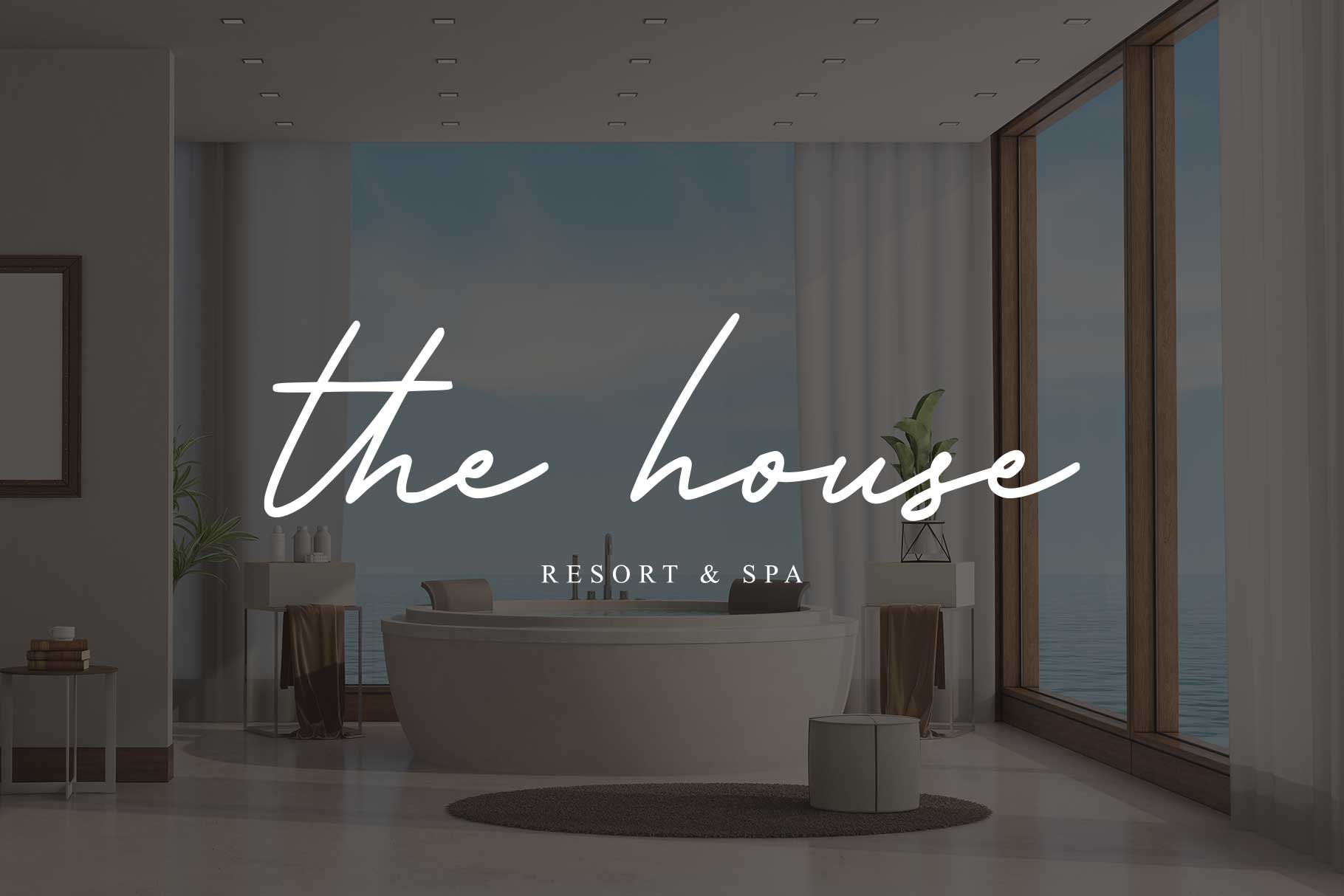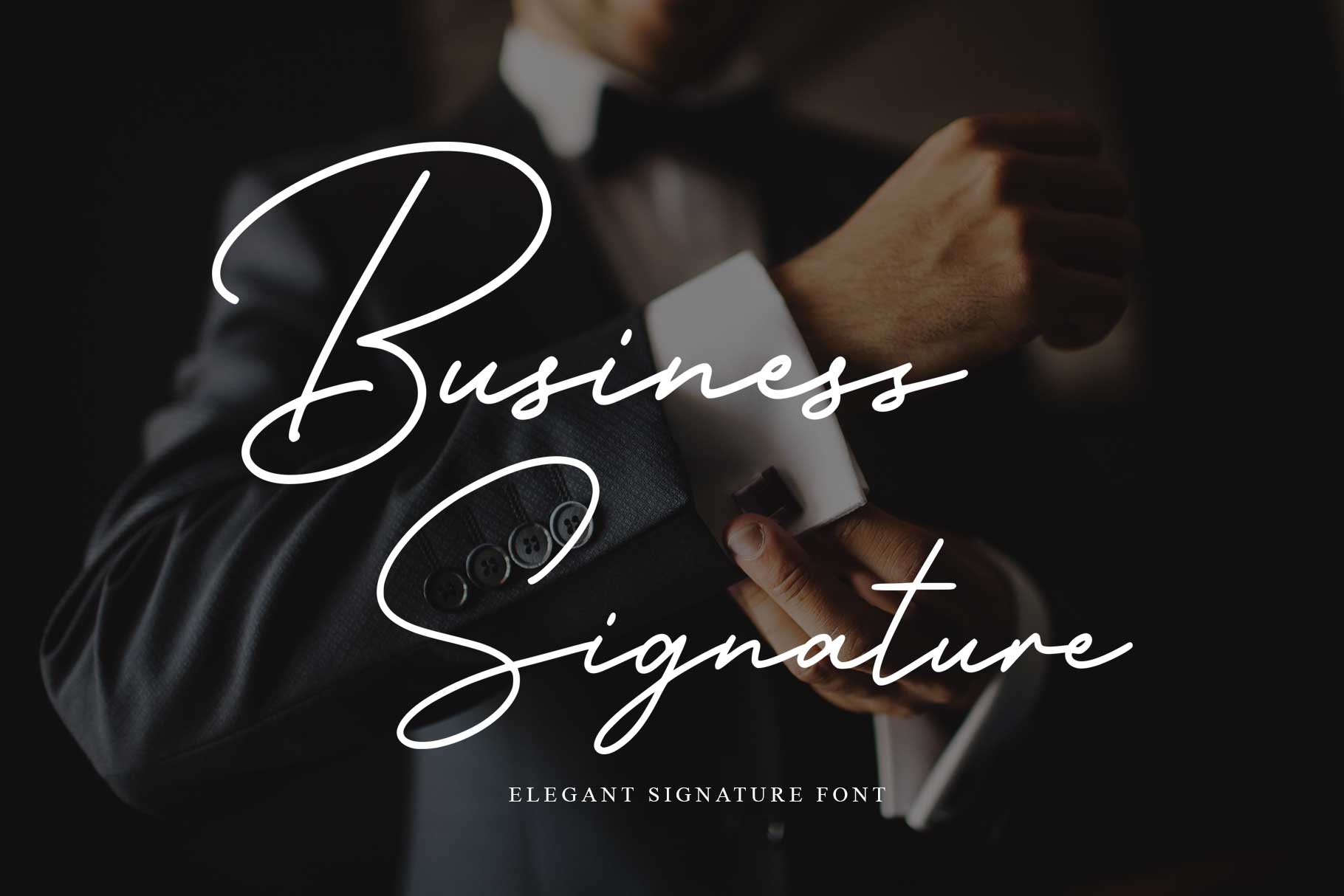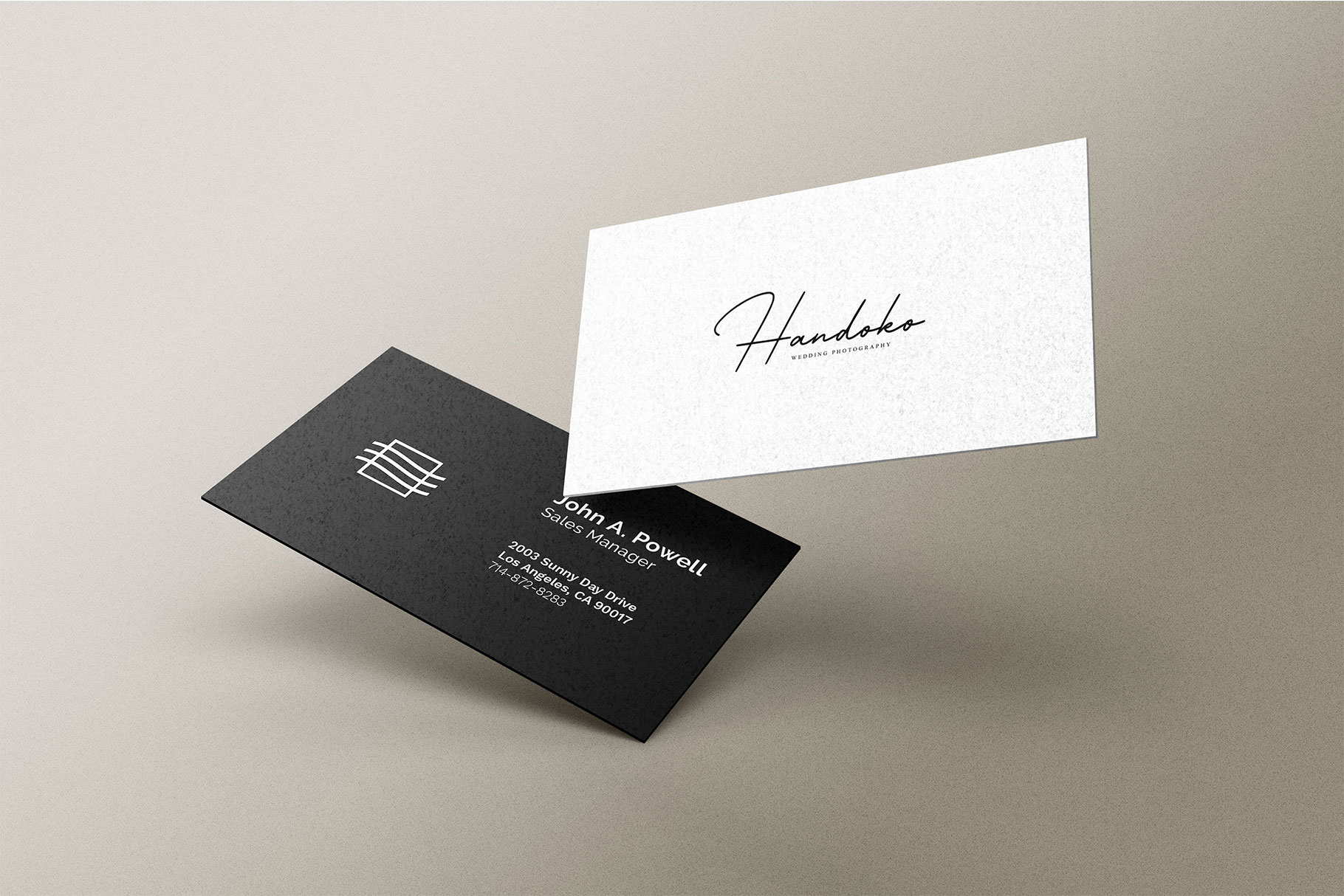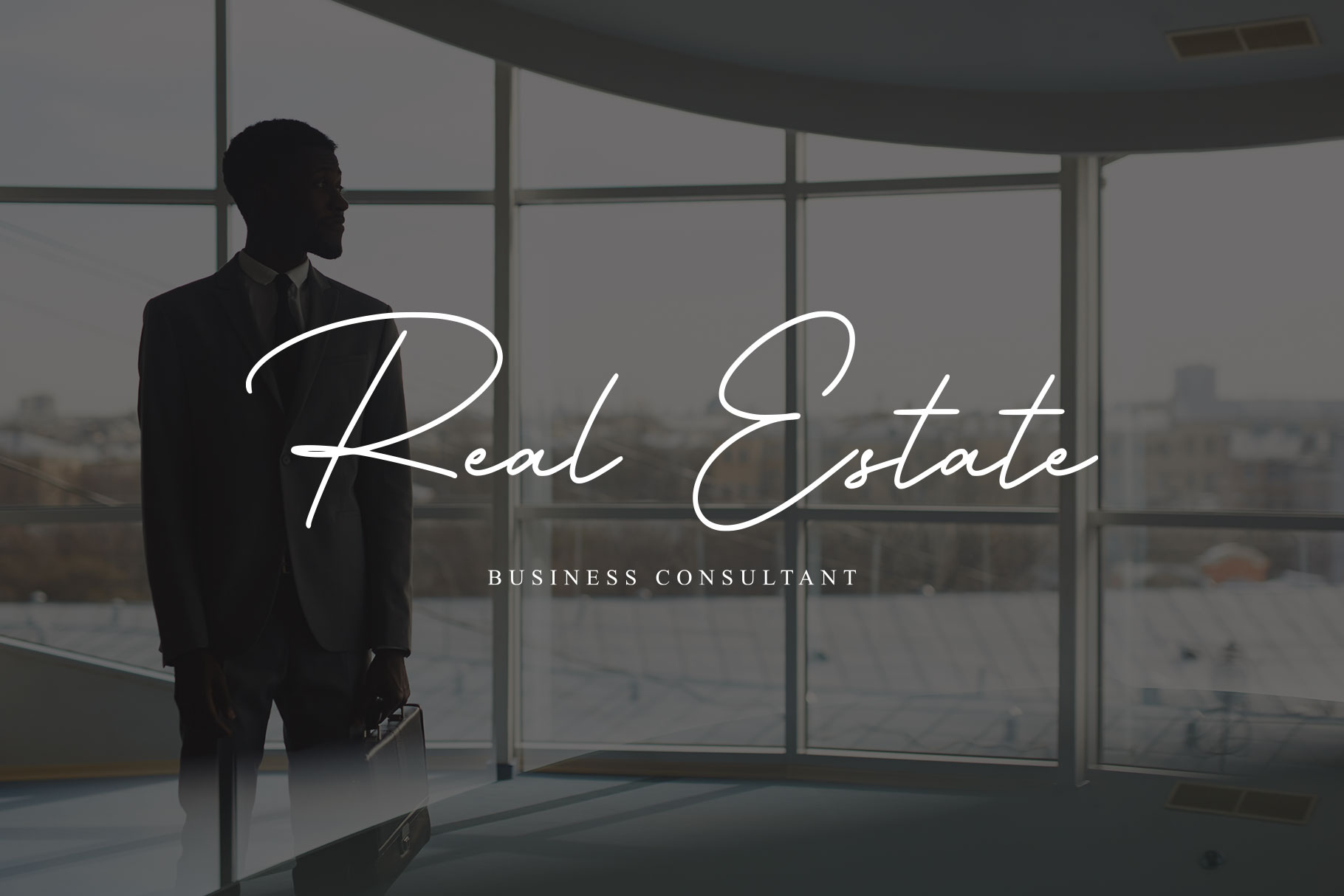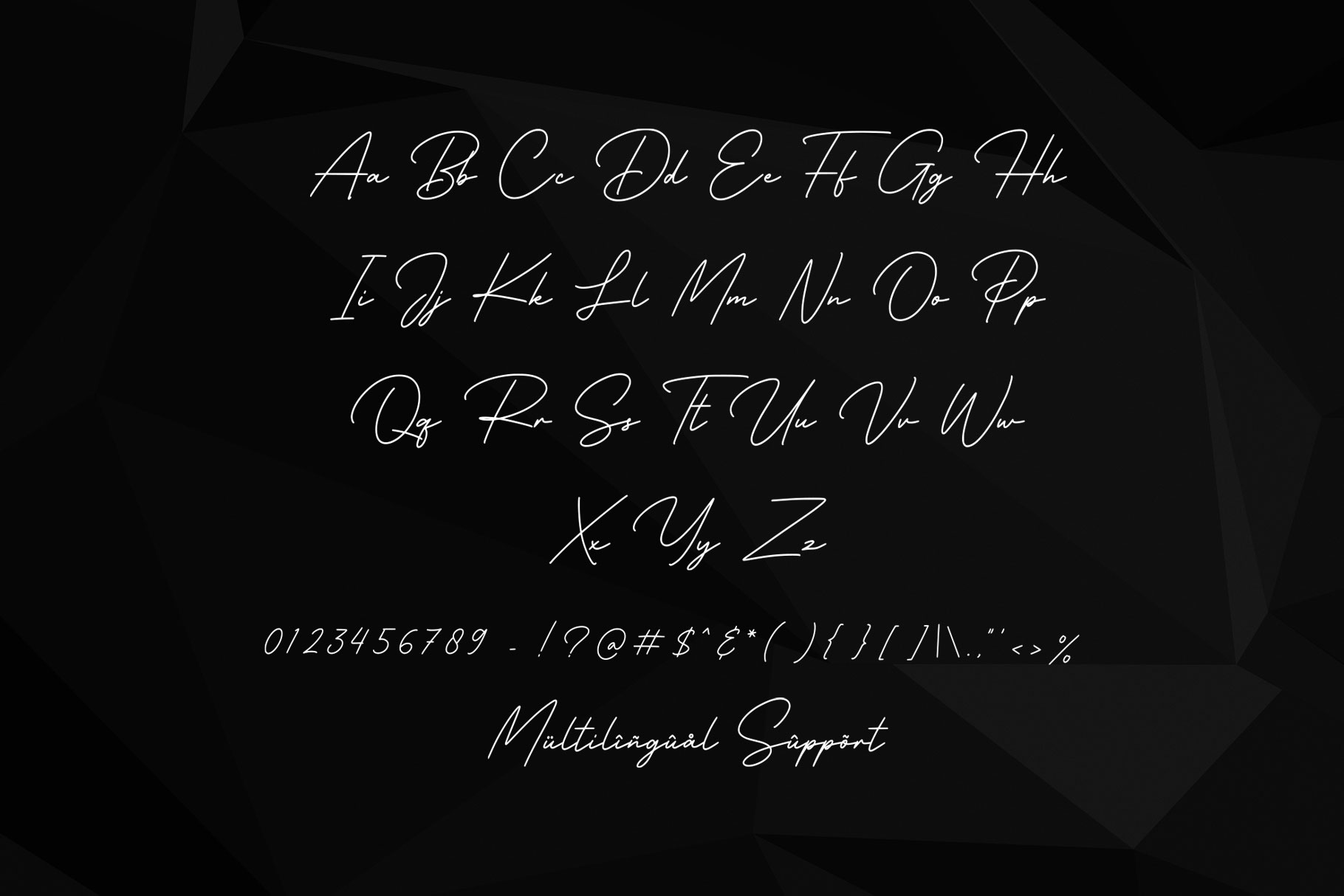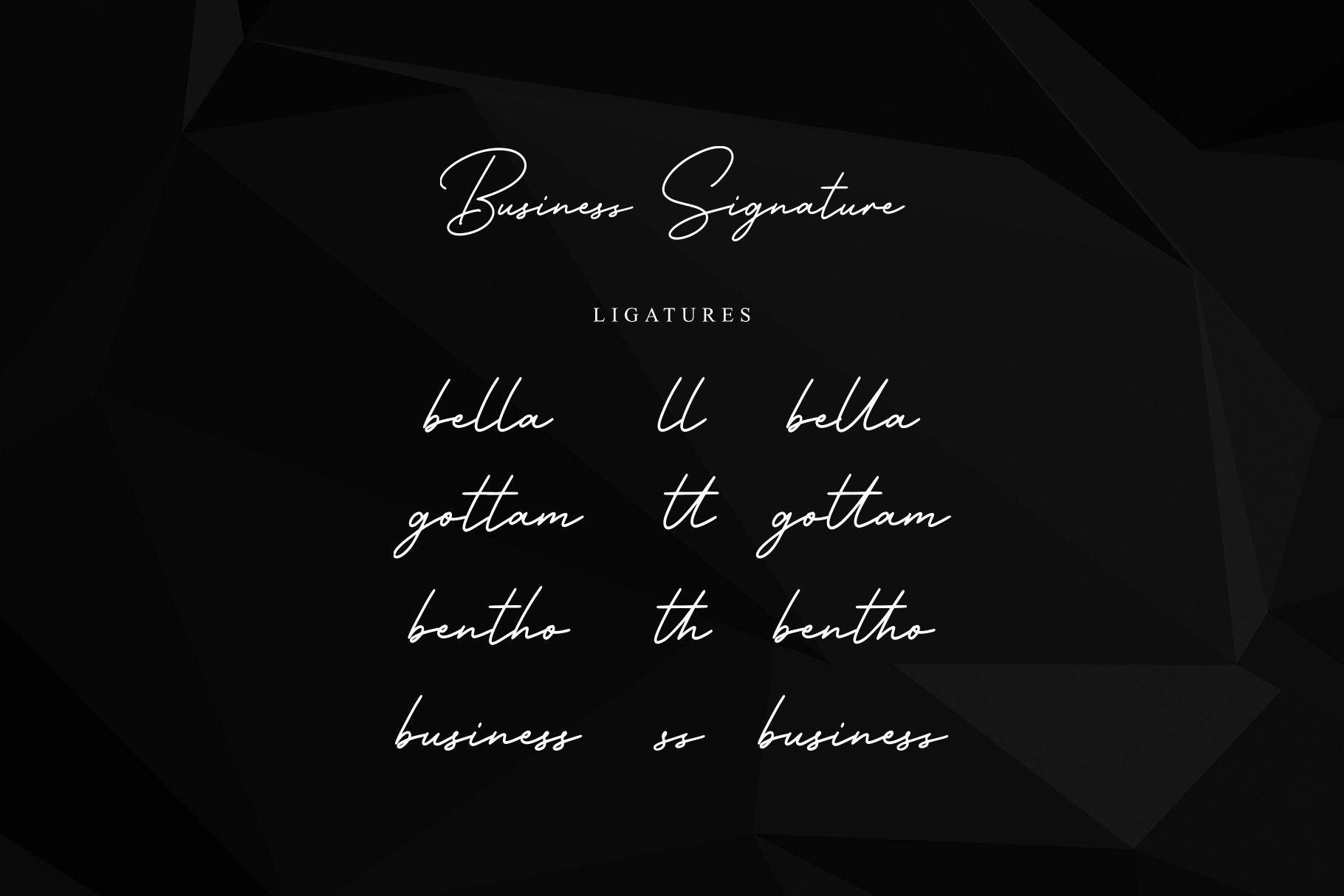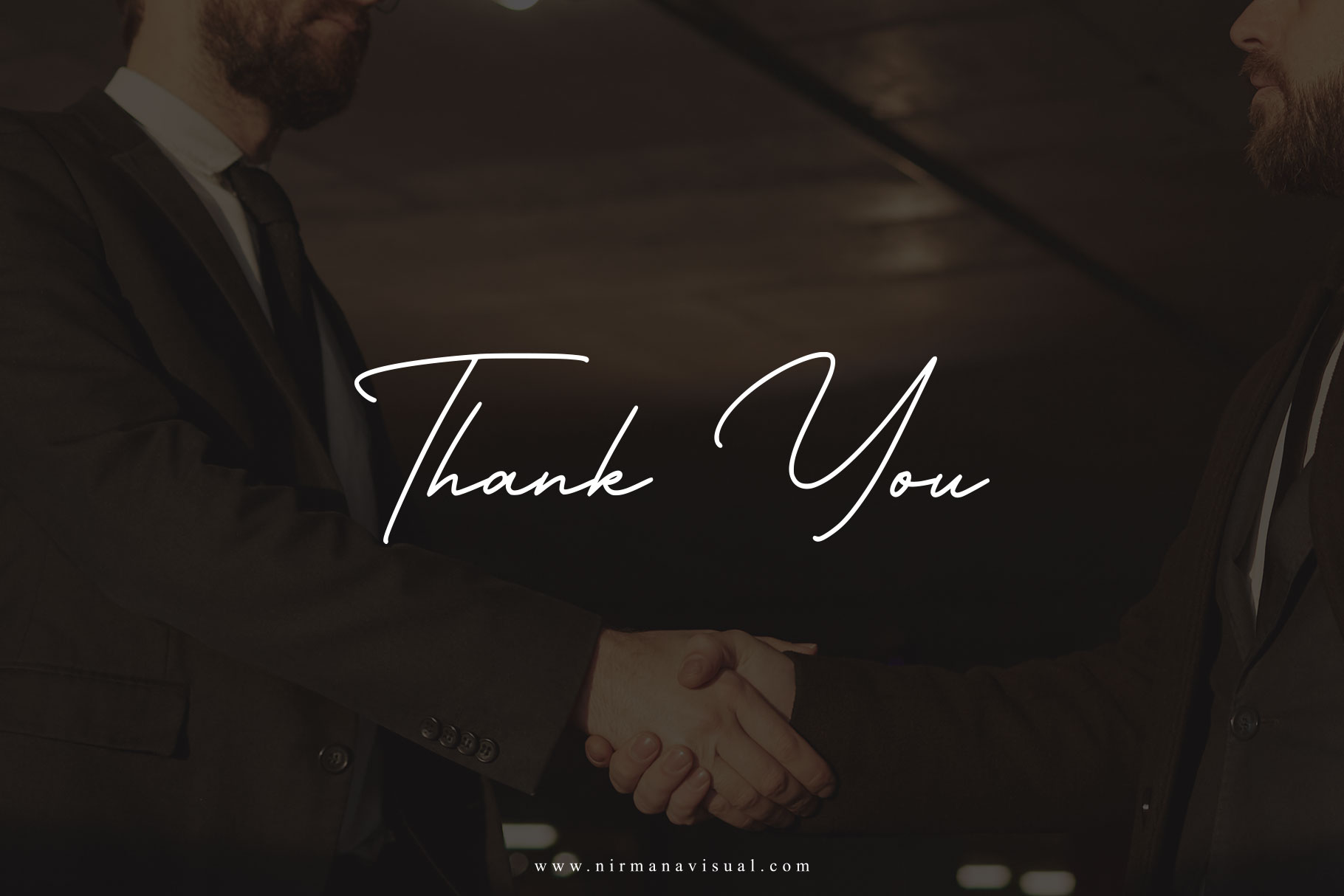
Business Signature
Seeking a sophisticated and elegant script font with a touch of refinement? Look no further than the perfect blend of modernity and classic charm. This delicate script font boasts a slender profile, imbuing your designs with an air of understated sophistication.
Its clean lines and smooth curves make it an excellent choice for creating a professional yet approachable atmosphere in your branding, marketing materials, or digital communications. Whether you're looking to establish a strong corporate presence or add a touch of whimsy to your design, this font's versatility will not disappoint.
With its refined aesthetic, Business Signature is particularly well-suited for use in:
- Corporate reports and presentations
- Branding and logos for upscale companies
- Marketing materials such as brochures and flyers
- Digital communications like email signatures and social media posts
- Wedding invitations and stationery
- Luxury product packaging
This font's slender profile and lack of clutter make it an excellent choice for creating a sense of elegance and refinement. Its clean, modern design ensures that your message will be conveyed with clarity and sophistication. Perfect for those seeking a font that exudes professionalism, sophistication, and poise, Business Signature is an excellent addition to any designer's arsenal.